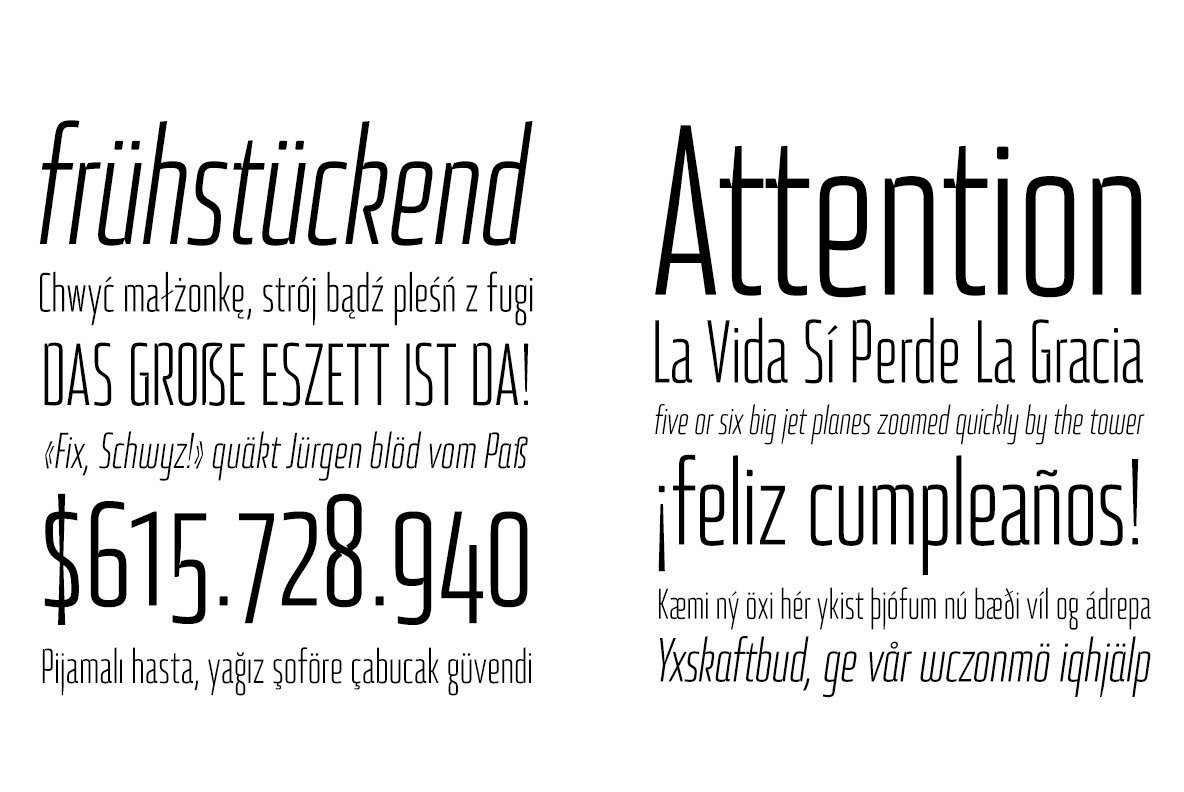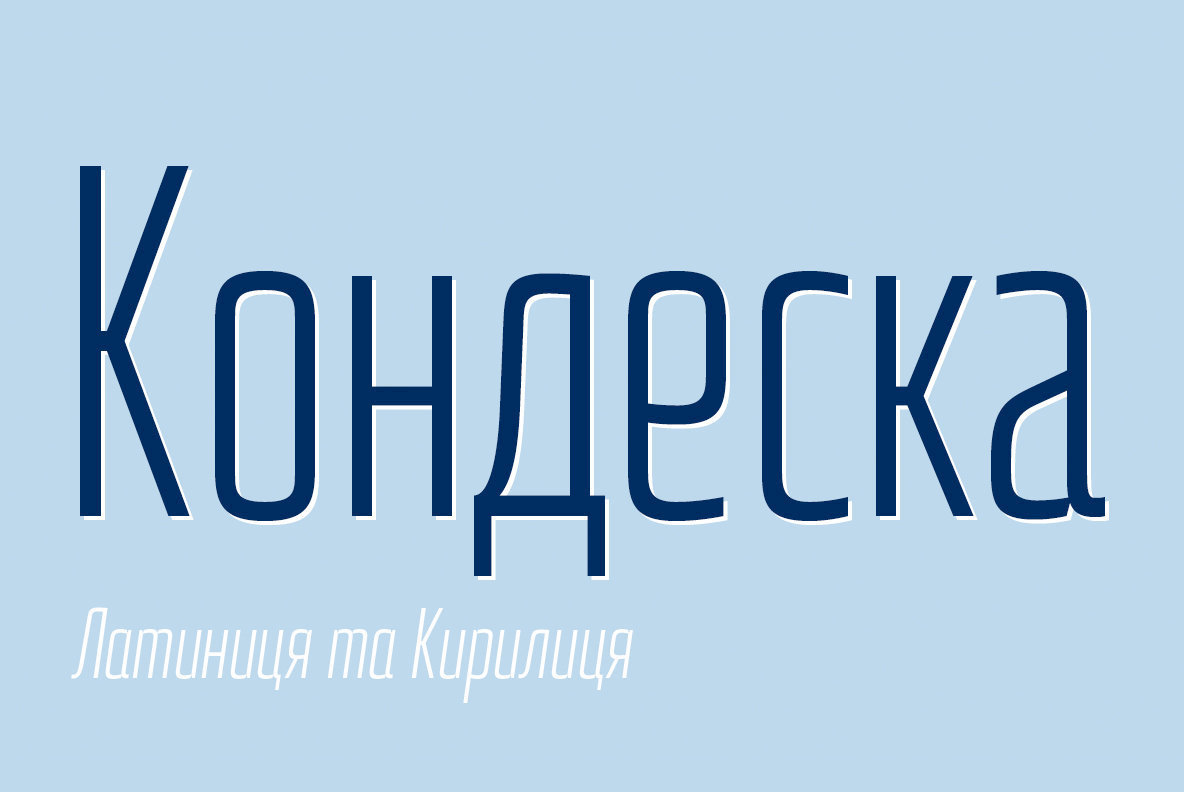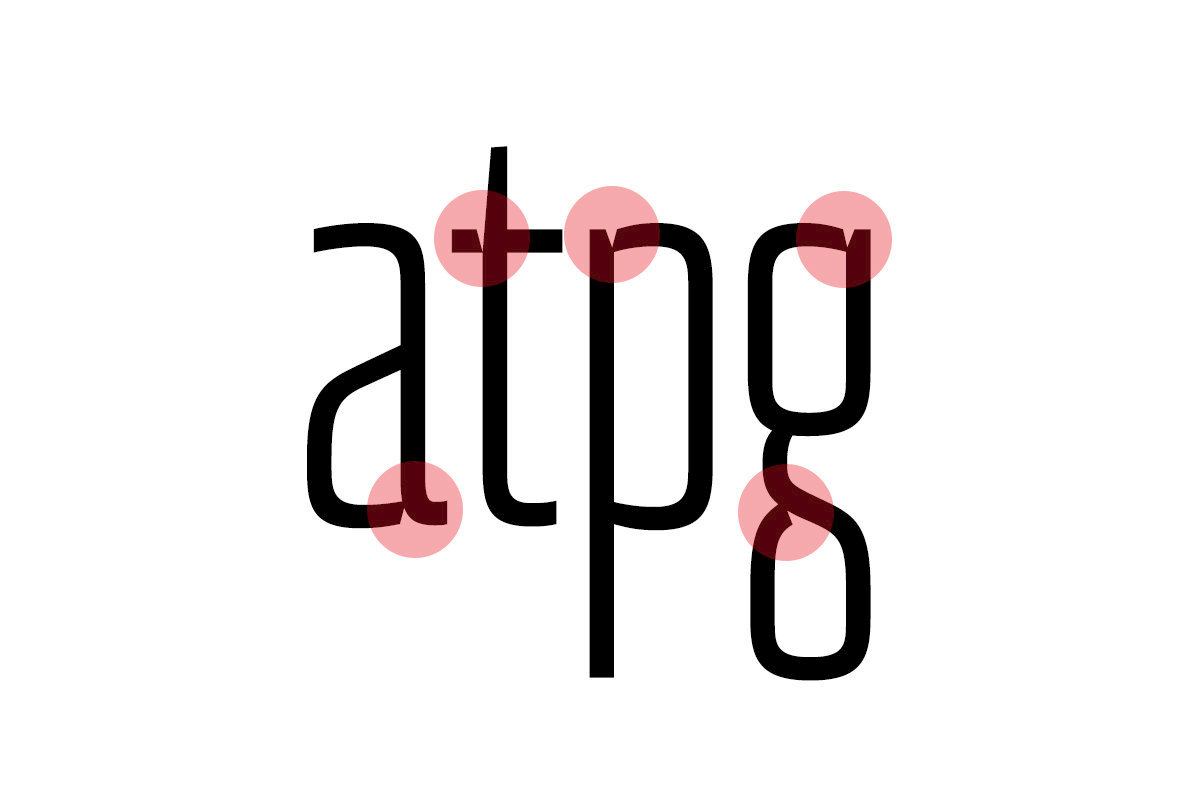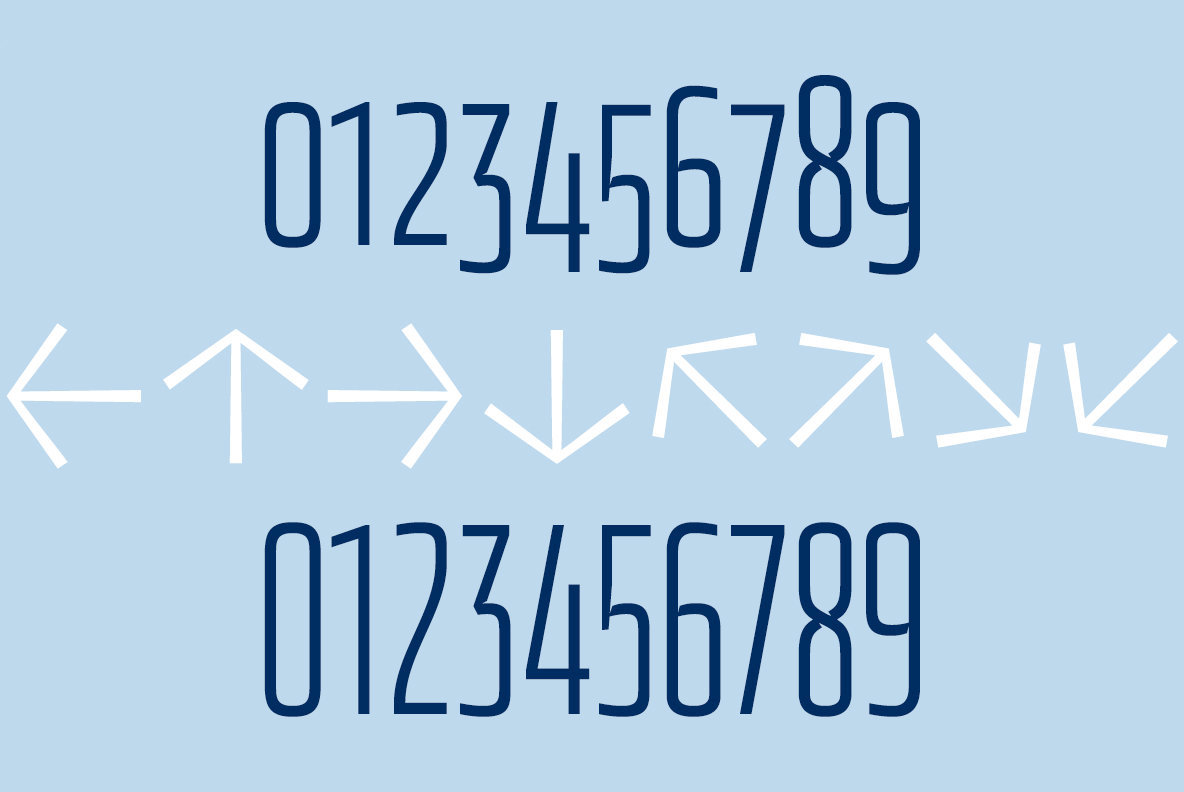
Condesqa 4F Font
Condesqa 4F, designed by Sergiy Tkachenko, embodies a unique blend of artistry and precision. Originating from the years 2012-2013, it reflects an era that valued both innovation and continuity in design aesthetics. This typeface offers a strong visual identity suitable for a range of creative applications, from editorial design to branding projects.Condesqa 4F: A Balanced Display Font
Published by 4th February, Condesqa 4F leaves a lasting impression with its distinctive style and versatility, making it a valuable addition to any designer’s toolkit.